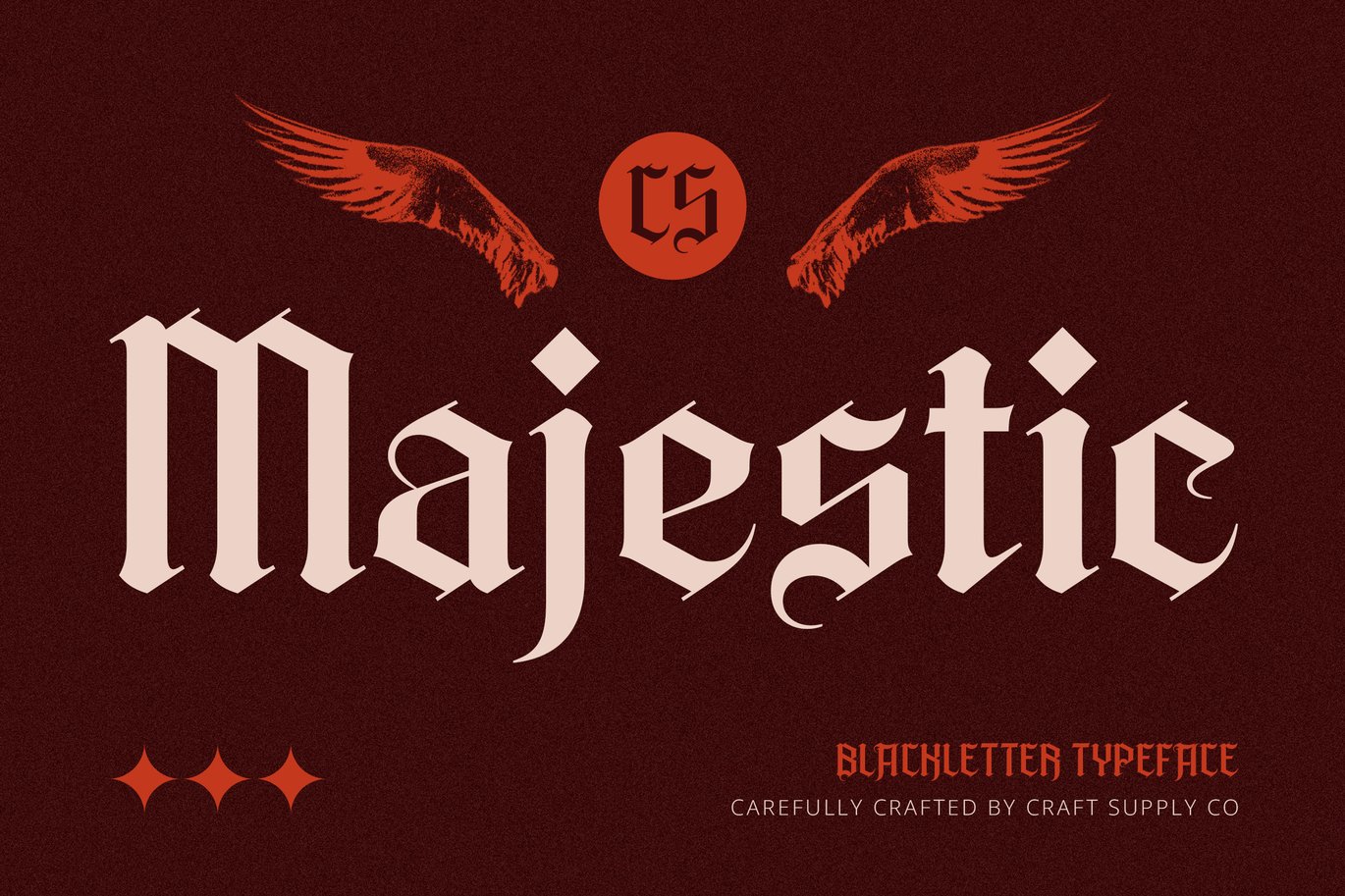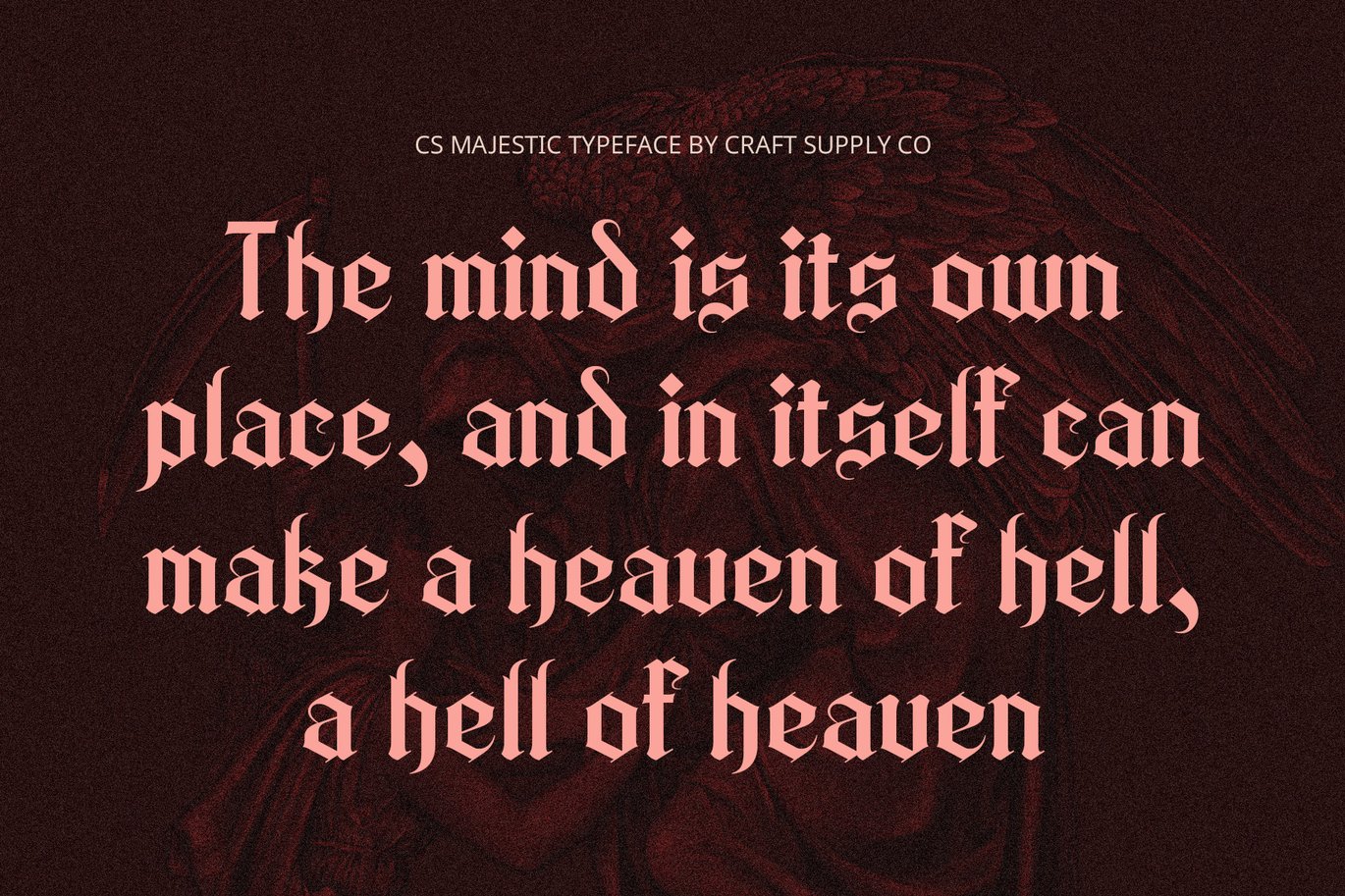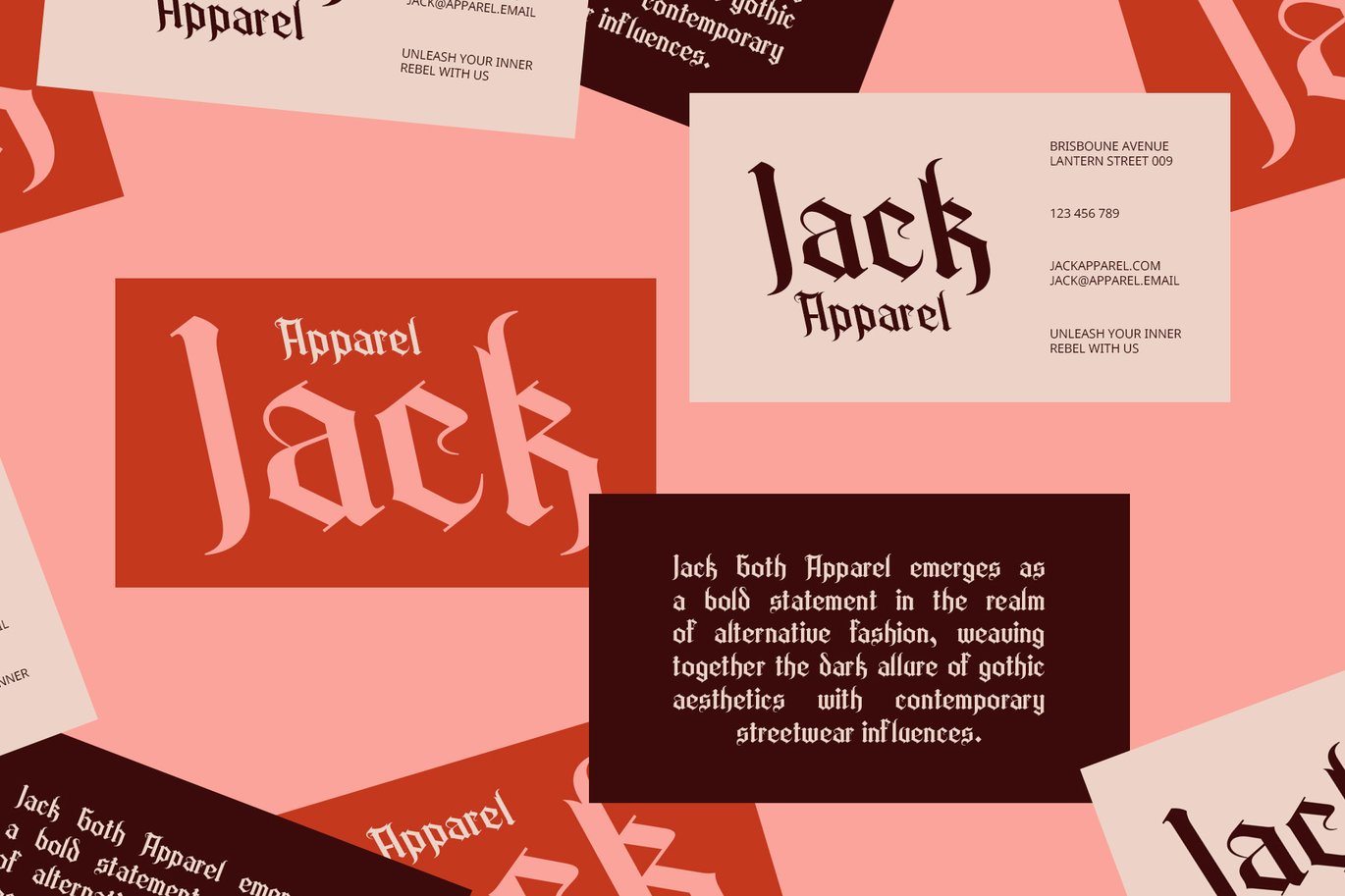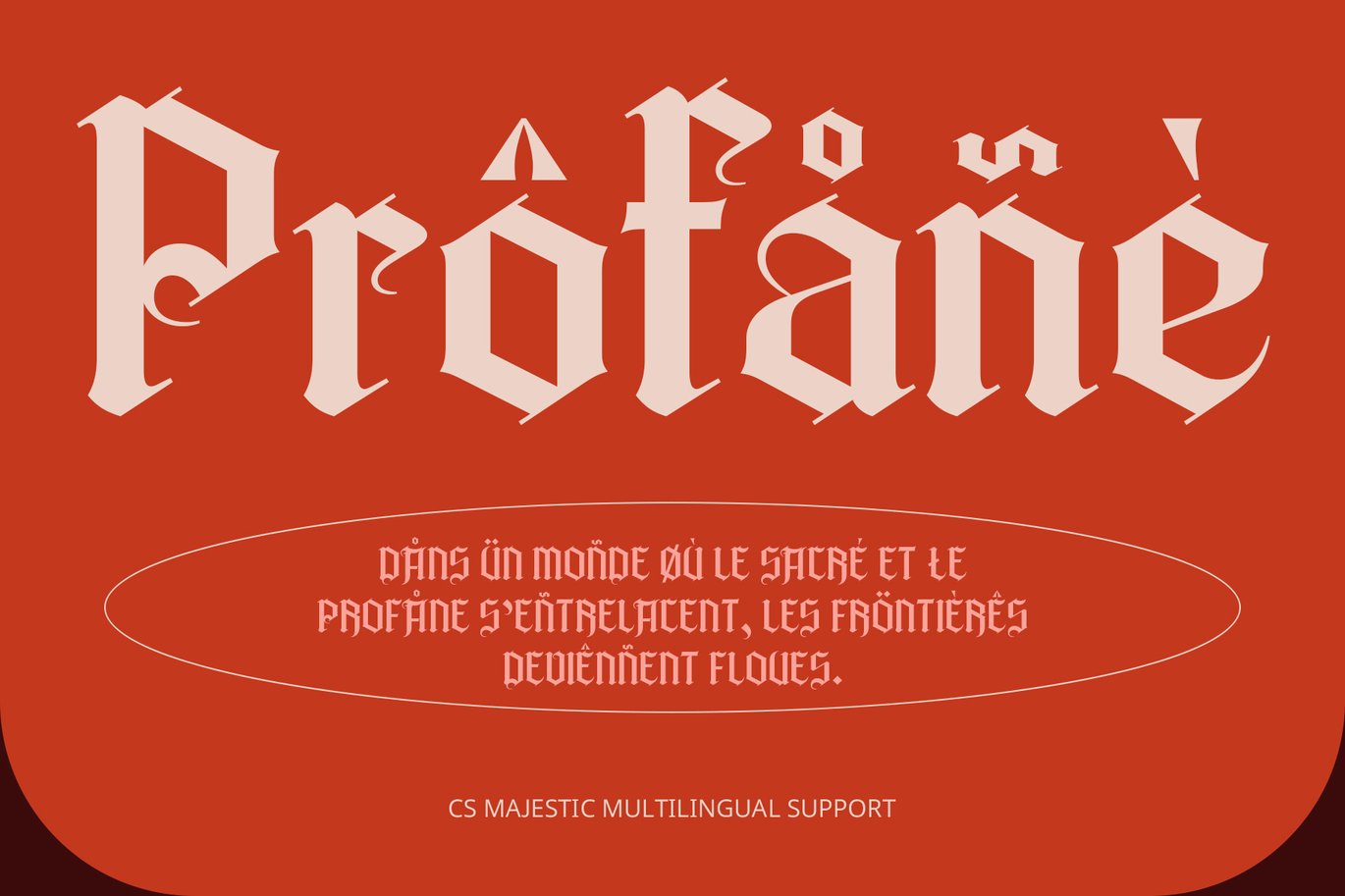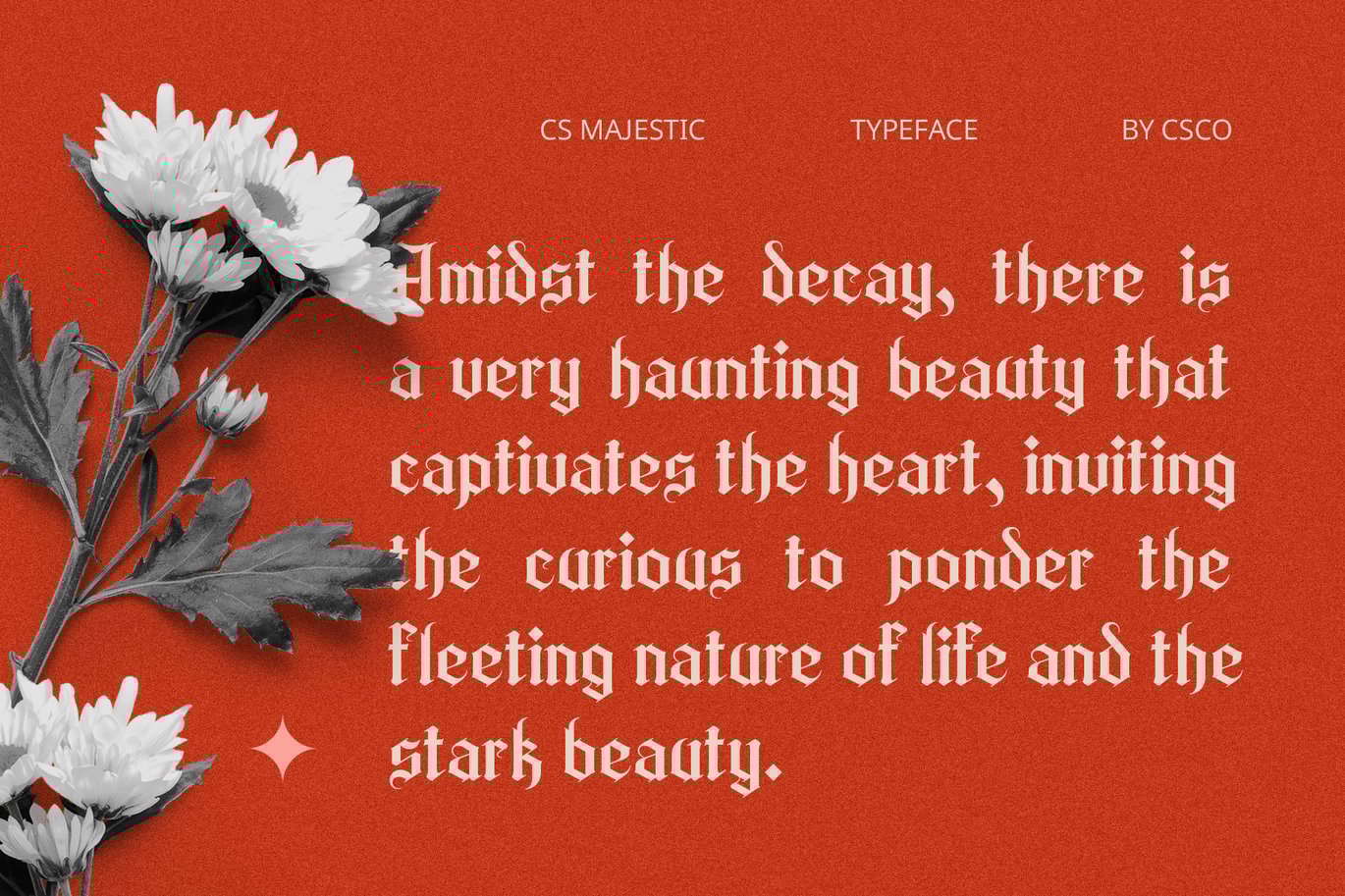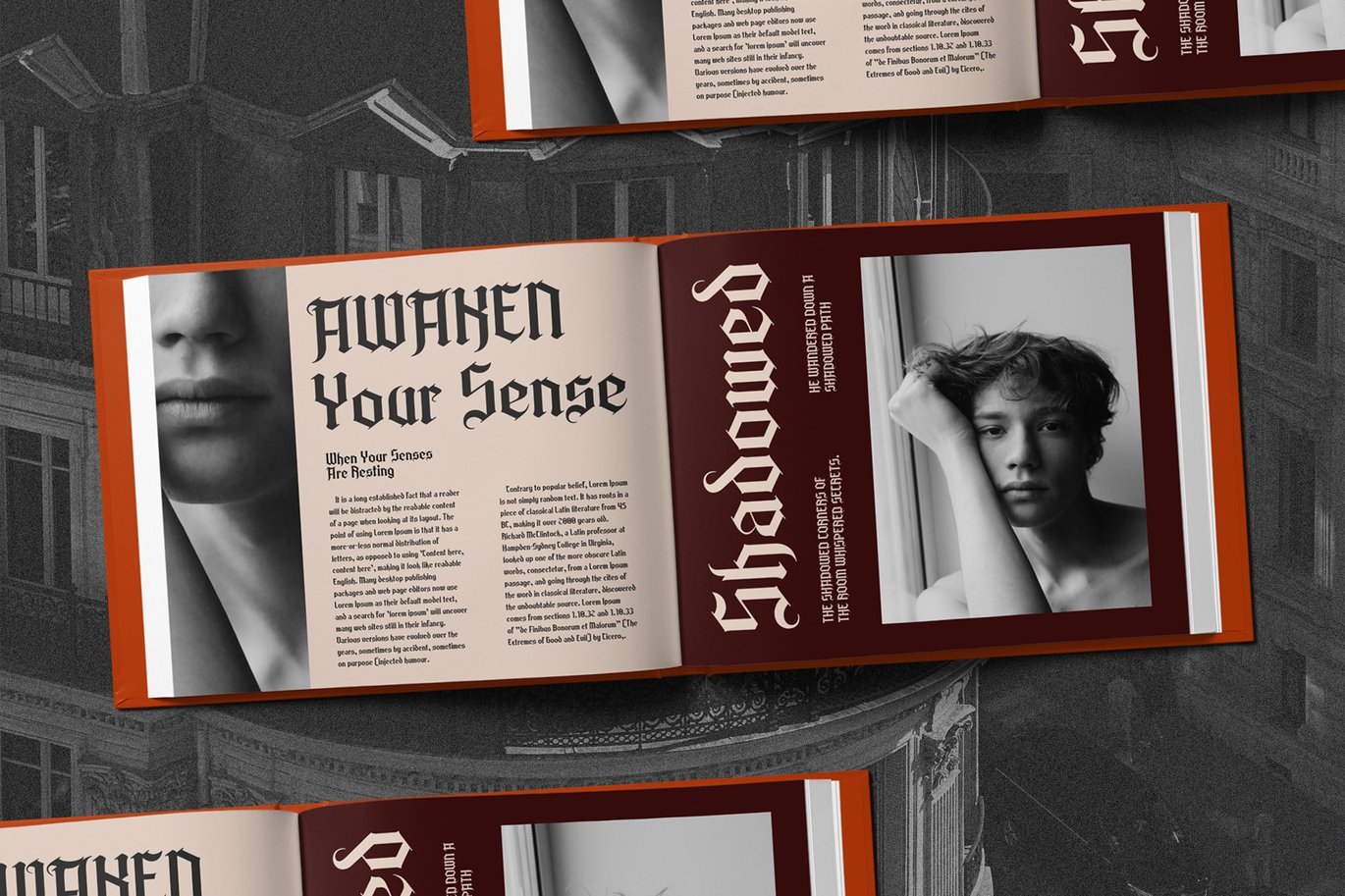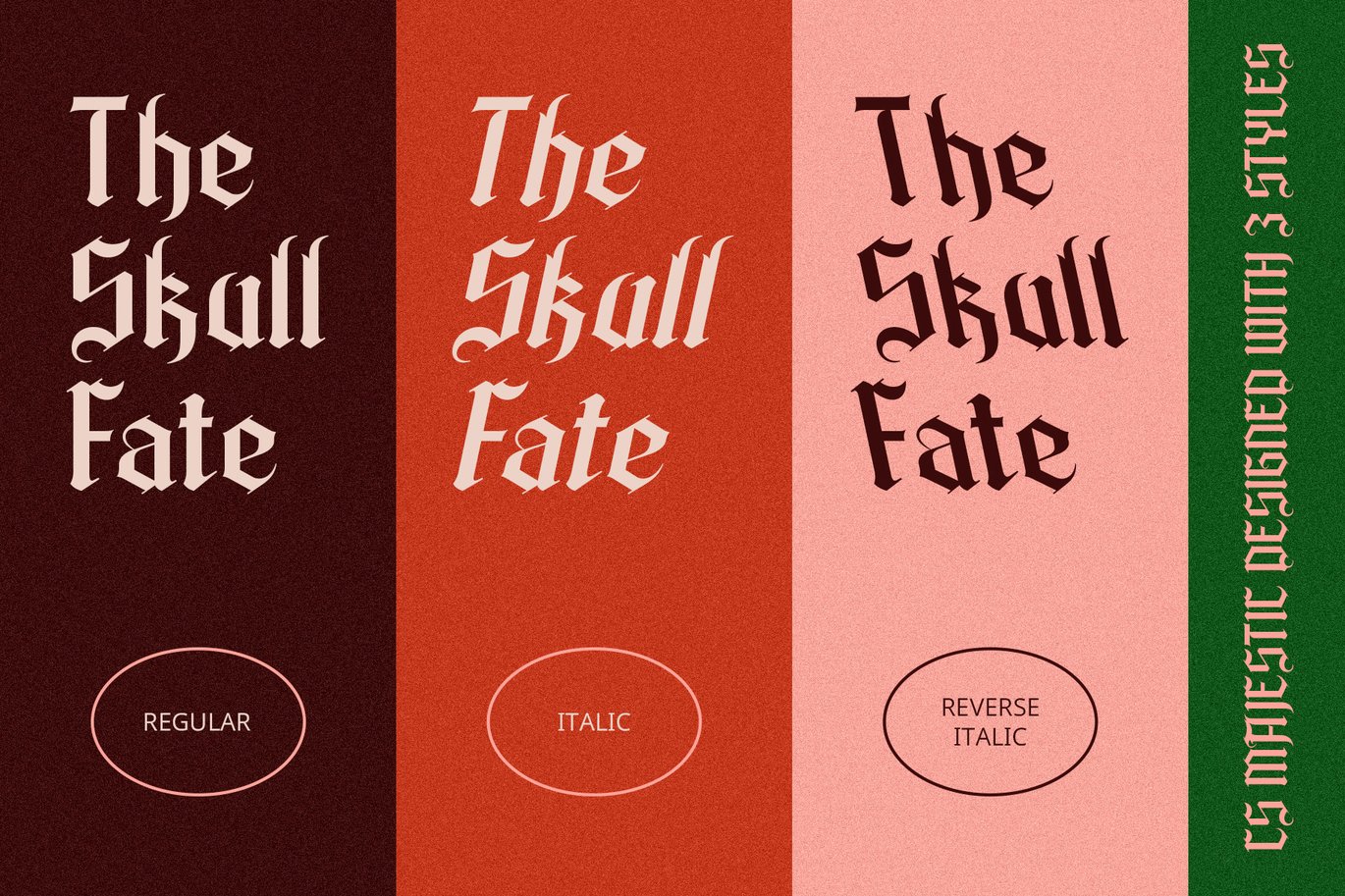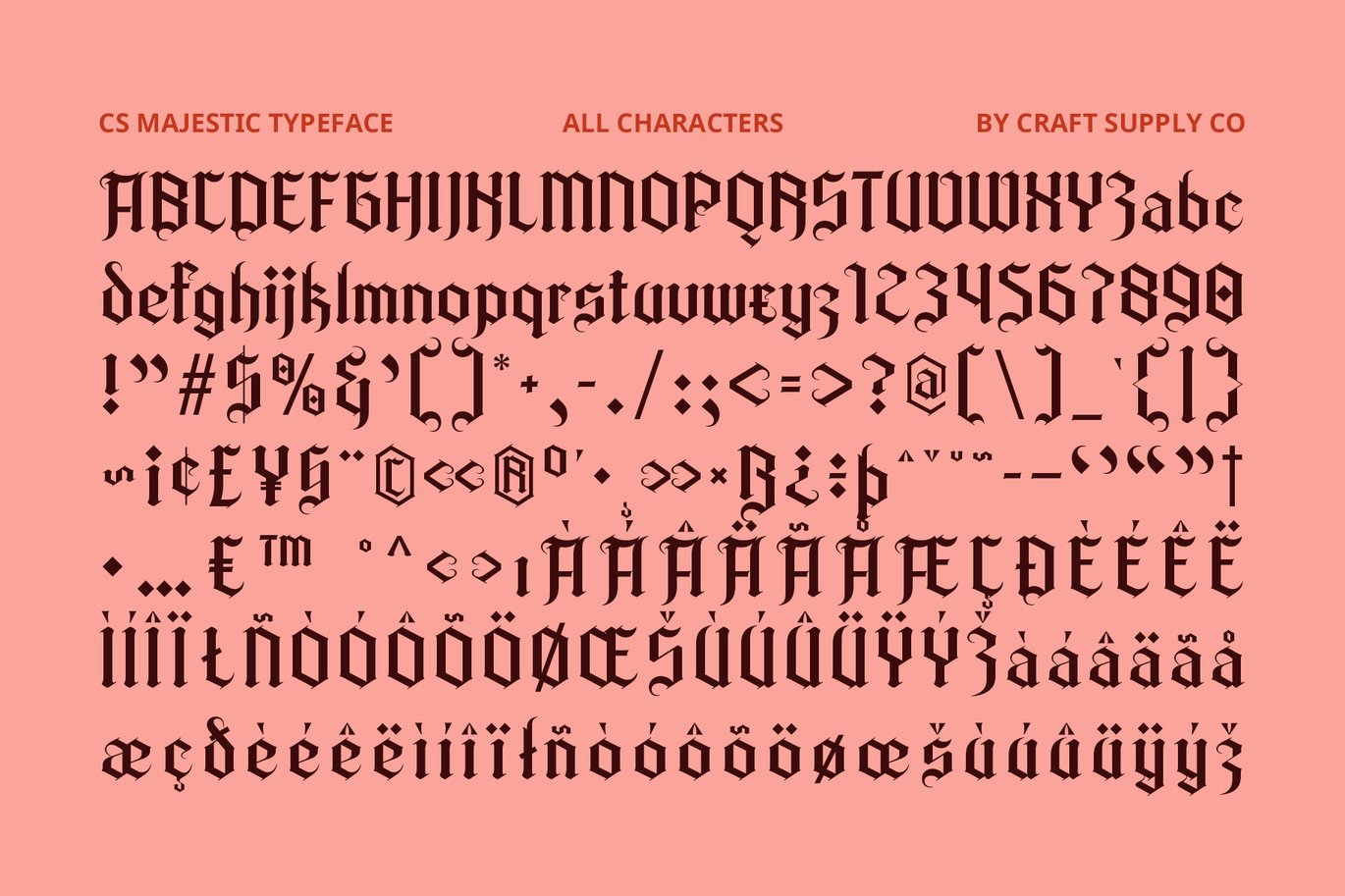
Majestic – Blackletter Font
CS Majestic – Blackletter Font: A Bold Tribute to Medieval Elegance
Classic Blackletter Display Font with Timeless Appeal
CS Majestic – Blackletter Font is a stunning display typeface that draws inspiration from medieval manuscripts, bringing a sense of history and formality to your design. With its thick, sharp strokes and intricate letterforms, this font channels the bold, dramatic look of traditional blackletter typography. The font’s angular corners, complex shapes, and rich decorative details make it a powerful choice for designs that need to convey a sense of authority, elegance, and historical authenticity.
Intricate Letterforms for Historical and Regal Charm
The complex design of CS Majestic features highly detailed letterforms with sharp angles and distinctive flourishes. These elements give the font a highly decorative and ornamental quality, making it an ideal choice for designs seeking to evoke a sense of tradition and regality. Perfect for medieval-inspired artwork, ceremonial documents, or luxury branding, CS Majestic brings a refined elegance and a historical touch to any project, making it an excellent option for designs with a royal or formal aesthetic.
Perfect for Formal Invitations and Official Branding
CS Majestic is the quintessential font for projects that require a sense of formality and timelessness. Its regal and authoritative appearance makes it an excellent choice for official invitations, certificates, and branding where a sense of classic prestige is desired.